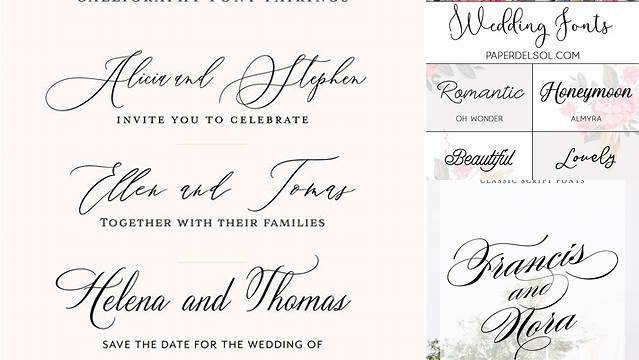
Elegant Script Fonts: Perfect For Wedding Invitations
Choosing the perfect font for your wedding invitations is a crucial decision, guys. It sets the tone for your special day and gives your guests a sneak peek into your wedding style. And when it comes to wedding invitations, script fonts are a timeless and elegant choice. But with so many options out there, it can feel overwhelming. Don't worry, we've got you covered! This guide will walk you through the best script fonts for wedding invitations, exploring different styles and providing tips for making the right choice. Let's dive in and find the perfect font to make your invitations truly unforgettable!
1. Classic Calligraphy Script Fonts
When we talk about wedding invitations, classic calligraphy script fonts immediately spring to mind. These fonts evoke a sense of timeless elegance and romance, reminiscent of handwritten letters and traditional ceremonies. Think flowing lines, delicate flourishes, and a touch of formality. These script fonts are perfect for couples aiming for a sophisticated and traditional aesthetic. Choosing a classic calligraphy font ensures your invitations exude grace and charm, setting the tone for a memorable celebration. Consider fonts like Edwardian Script ITC, English Vivace, or Shelley Allegro Script. These script fonts are known for their readability and refined appearance, making them ideal for formal invitations. Remember, readability is key, so choose a script font that is both beautiful and easy to read. You want your guests to be able to easily access the important details of your wedding! A well-chosen classic calligraphy script font will add a touch of timeless beauty to your special day.
2. Modern Script Fonts for Invitations
For couples seeking a more contemporary feel, modern script fonts offer a refreshing alternative. These fonts retain the elegance of calligraphy but incorporate clean lines and a touch of minimalism. Think of it as classic calligraphy's cooler, more contemporary cousin. Modern script fonts are perfect for couples who want a sophisticated yet trendy vibe. They strike a balance between tradition and modernity, making them versatile for various wedding styles. If your wedding has a sleek, chic, or even a slightly bohemian theme, a modern script font might be just the ticket. Consider fonts like Hello Script, Adelia, or Milkshake. These options provide a stylish twist on traditional calligraphy, making your invitations stand out. The key is to find a script font that feels both elegant and fresh, reflecting your unique style as a couple. Remember, guys, your invitations are the first glimpse your guests get of your wedding, so make it a good one!
3. Romantic and Flowing Script Fonts
If you're aiming for a truly romantic and dreamy feel, flowing script fonts are the way to go. These fonts are characterized by their graceful curves, elegant loops, and overall ethereal quality. Imagine the soft, sweeping lines of a love letter â that's the kind of emotion these fonts evoke. Romantic and flowing script fonts are perfect for weddings with a soft, whimsical, or fairytale-like theme. They add a touch of magic and enchantment to your invitations, setting the stage for a day filled with love and romance. Some fantastic options in this category include Aphrodite Pro, Samantha Script, and Isabella Script. These script fonts are known for their delicate beauty and intricate details. When choosing a flowing script font, consider the overall readability and ensure it complements the other design elements of your invitation. A beautifully flowing script font will add an extra touch of romance to your special day.
4. Bold and Dramatic Script Fonts
For couples who want to make a statement, bold and dramatic script fonts are an excellent choice. These fonts exude confidence and personality, perfect for weddings with a modern, glamorous, or even slightly edgy vibe. Think of them as the powerhouses of the script font world! Bold script fonts are not afraid to take center stage, commanding attention with their strong lines and distinctive presence. They are perfect for couples who want their invitations to be memorable and impactful. Fonts like Great Vibes, Playlist Script, and Black Jack are great examples of bold script fonts. These options have a strong presence while still maintaining an elegant touch. When using a bold script font, make sure to balance it with simpler fonts for other text elements to maintain readability. A well-chosen bold script font can add a touch of drama and sophistication to your wedding invitations.
5. Casual and Whimsical Script Fonts
If your wedding has a more relaxed and informal atmosphere, casual and whimsical script fonts are a fantastic option. These fonts have a playful and approachable feel, perfect for rustic, bohemian, or outdoor weddings. Think of them as the fun-loving cousins of the calligraphy family! Casual script fonts often feature a more handwritten or brush-style look, adding a personal touch to your invitations. They are perfect for couples who want their invitations to feel warm, inviting, and a bit less formal. Fonts like Amatic SC, Permanent Marker, or Lemon Tuesday offer a casual yet stylish vibe. These script fonts are great for conveying a sense of fun and personality. When using a casual script font, make sure it still complements the overall design of your invitation and reflects your wedding's relaxed atmosphere. A whimsical script font can add a touch of charm and personality to your special day.
6. Elegant Handwritten Script Styles
Elegant handwritten script styles bring a personal and intimate touch to wedding invitations. These fonts mimic the natural flow of handwriting, adding a sense of authenticity and sophistication. They're perfect for couples who want their invitations to feel like a heartfelt letter. Imagine your guests receiving an invitation that looks like it was penned just for them! These script fonts often feature slight imperfections and variations, further enhancing their handwritten charm. They're ideal for classic, romantic, or even vintage-themed weddings. Consider options like Beloved Script, La Sonnambula, or Mightype. These script fonts capture the essence of handwritten elegance, making your invitations truly special. Remember, the goal is to create an invitation that feels both personal and polished, and an elegant handwritten script font can help you achieve that.
7. Modern Calligraphy Font Choices
Modern calligraphy font choices bridge the gap between traditional elegance and contemporary design. These fonts combine the flowing lines of calligraphy with a cleaner, more minimalist aesthetic. They're perfect for couples who love the beauty of calligraphy but prefer a more updated look. Think of it as calligraphy with a modern twist! Modern calligraphy script fonts often feature unique letterforms and subtle variations, adding a touch of personality to your invitations. They're versatile enough to suit a variety of wedding styles, from chic and sophisticated to relaxed and bohemian. Options like September Script, Kallima, or Sophia Ronald Script offer a modern take on classic calligraphy. These script fonts provide a fresh and stylish feel, ensuring your invitations are both timeless and on-trend. Choosing the right modern calligraphy font choice can elevate your invitations and set the tone for a beautiful celebration.
8. Best Script Fonts for Save-the-Dates
Choosing the best script fonts for save-the-dates is just as important as selecting the fonts for your actual invitations. Save-the-dates are the first glimpse your guests get of your wedding style, so you want to make a good impression! Script fonts can add a touch of elegance and personality to your save-the-dates, setting the stage for your big day. The key is to choose a script font that is both beautiful and legible, ensuring your guests can easily read the important details. Consider a script font that complements your overall wedding theme and style. For example, a classic calligraphy script font would be perfect for a formal wedding, while a casual script font would be ideal for a rustic or bohemian celebration. Some great options for save-the-dates include Bickham Script Pro, Honey Script, or * āĻĢāĻā§āĻā§āϰāĻžāĻĢ*. These script fonts offer a variety of styles to suit your unique preferences. Remember, guys, your save-the-dates are the first step in building excitement for your wedding, so make them count!
9. Script Font Pairings for Invitations
One of the secrets to creating stunning wedding invitations is mastering script font pairings. Choosing the right combination of fonts can elevate your design and create a cohesive and visually appealing look. The key is to pair your chosen script font with a complementary sans-serif or serif font. Think of it as creating a harmonious balance between elegance and readability. For example, a flowing calligraphy script font might pair beautifully with a clean and modern sans-serif font. This combination creates a sense of sophistication while ensuring the important details are easy to read. When experimenting with script font pairings, consider the overall style of your wedding. A formal wedding might call for a more classic pairing, while a casual wedding could benefit from a more playful combination. Some popular script font pairings include Mrs Eaves with Raleway, Great Vibes with Montserrat, or Samantha Script with Lato. These combinations offer a variety of styles to suit different tastes. Don't be afraid to experiment and find the perfect script font pairing that reflects your unique style as a couple.
10. Free Script Fonts for Wedding Invitations
Creating beautiful wedding invitations doesn't have to break the bank! There are tons of amazing free script fonts available that can add a touch of elegance to your special day. While premium script fonts often offer more features and variations, many free script fonts are still incredibly stylish and versatile. The key is to do your research and find script fonts that are both beautiful and legible. Many websites offer a wide selection of free script fonts, so you're sure to find something that suits your taste. When using free script fonts, be sure to check the licensing terms to ensure they are suitable for commercial use (if you plan to print your invitations professionally). Some fantastic free script font options include * āĻā§āϝāĻžāύā§āϞā§āϰ *, * āĻā§āϝāĻžāύā§āϞā§āϰ *, or * āĻā§āϝāĻžāύā§āϞā§āϰ *. These script fonts offer a range of styles, from classic calligraphy to modern and whimsical. Don't be afraid to mix and match free script fonts to create a unique and personalized look. With a little creativity, you can design stunning wedding invitations without spending a fortune. Remember, guys, it's the thought and love that goes into your invitations that truly matters!
11. Premium Script Font Options
If you're looking for the ultimate in quality and versatility, exploring premium script font options is definitely worth considering. Premium script fonts often offer a wider range of features, including alternate characters, ligatures, and multiple weights, giving you greater control over your design. They are typically created by professional type designers, ensuring a high level of craftsmanship and attention to detail. While premium script fonts come with a cost, the investment can be well worth it if you want to create truly unique and stunning wedding invitations. They can elevate your design and give it a polished, professional look. Premium script fonts often come with extended licensing options, allowing you to use them for various projects. Some popular premium script font options include Samantha Script Pro, Burgues Script, or *áá *. These script fonts are known for their exceptional quality and versatility. When choosing a premium script font, consider your overall budget and design needs. If you're planning to use the script font for multiple projects, a premium script font can be a worthwhile investment. Remember, guys, your wedding invitations are a reflection of your special day, so choosing a high-quality script font can make a big difference!
12. Script Fonts with Swashes and Flourishes
For an extra touch of elegance and sophistication, consider script fonts with swashes and flourishes. These decorative elements add a touch of drama and visual interest to your wedding invitations, making them truly stand out. Swashes are extended strokes that flow gracefully from the letters, while flourishes are decorative embellishments that add a touch of whimsy. Script fonts with swashes and flourishes are perfect for couples who want their invitations to feel extra special and luxurious. They're ideal for formal weddings, romantic celebrations, or any event where you want to make a statement. When using script fonts with swashes and flourishes, it's important to use them sparingly to avoid overwhelming the design. A few well-placed swashes can add a touch of elegance, but too many can make the invitation look cluttered. Some beautiful script fonts with swashes and flourishes include Aphrodite Pro, Adorn Smooth Script, or Beloved Script. These script fonts offer a variety of swash and flourish options, allowing you to customize your invitations to your exact preferences. Remember, guys, a touch of embellishment can go a long way in creating a memorable invitation!
13. Best Cursive Fonts for Wedding Invites
Let's talk cursive, guys! When it comes to wedding invitations, the best cursive fonts are often the top choice for adding that touch of romance and elegance. Cursive fonts mimic handwriting, giving your invites a personal and intimate feel. Think of it as a handwritten love letter transformed into a beautiful invitation. The key to selecting the best cursive fonts lies in balancing aesthetics with readability. You want a font that's gorgeous but also ensures your guests can easily read the details of your special day. For a classic and timeless look, consider calligraphy-inspired cursive fonts. These fonts often feature elegant loops and swirls, perfect for formal weddings. On the other hand, modern cursive fonts offer a cleaner, more contemporary feel, ideal for chic or minimalist celebrations. Options like * āĻā§āϝāĻžāύā§āϞā§āϰ * or * āĻā§āϝāĻžāύā§āϞā§āϰ * are stunning choices, blending sophistication with a touch of personality. Remember, your wedding invitation is the first impression, so make it count with a beautifully chosen cursive font!
14. Hand Lettering Styles for Invitations
If you're aiming for a truly unique and personal touch, hand lettering styles for invitations are the way to go. Hand lettering is the art of creating custom letterforms by hand, rather than using pre-designed script fonts. This allows for a level of customization and artistry that is simply unmatched. Imagine your wedding invitations featuring lettering that is completely unique to your special day! Hand lettering can range from elegant calligraphy to whimsical brush lettering, offering endless possibilities for creativity. It's perfect for couples who want their invitations to feel like a true work of art. When incorporating hand lettering styles, you can either hire a professional hand lettering artist or try your hand at creating your own designs. There are tons of online resources and tutorials available to help you learn the basics of hand lettering. Some popular hand lettering styles for invitations include modern calligraphy, brush lettering, and chalkboard lettering. These styles offer a variety of aesthetics to suit different wedding themes. Remember, guys, hand lettering styles add a personal touch that your guests will truly appreciate!
15. Digital Calligraphy Fonts for Weddings
Digital calligraphy fonts for weddings offer the beauty of traditional calligraphy with the convenience of digital design. These fonts are created to mimic the look and feel of hand-lettered calligraphy, but they can be easily used in various design software programs. This makes them a perfect option for couples who want the elegance of calligraphy without the cost or time commitment of hiring a professional calligrapher. Digital calligraphy fonts come in a wide range of styles, from classic and formal to modern and whimsical. This versatility allows you to find the perfect digital calligraphy font to match your wedding theme and style. When choosing a digital calligraphy font, it's important to consider readability. While some script fonts are incredibly beautiful, they can be difficult to read if the lettering is too intricate. Look for digital calligraphy fonts that strike a balance between aesthetics and legibility. Some popular digital calligraphy fonts for weddings include * āĻā§āϝāĻžāύā§āϞā§āϰ *, * āĻā§āϝāĻžāύā§āϞā§āϰ *, or * āĻā§āϝāĻžāύā§āϞā§āϰ *. These script fonts offer a variety of styles and personalities. Remember, guys, digital calligraphy fonts are a fantastic way to add a touch of elegance to your wedding invitations!
16. Formal Script Fonts for Elegant Invitations
When it comes to elegant wedding invitations, formal script fonts are a classic choice. These fonts exude sophistication and timelessness, making them perfect for traditional or black-tie weddings. Think of them as the tuxedo of the font world! Formal script fonts often feature elegant swashes, delicate flourishes, and graceful curves, adding a touch of luxury to your invitations. They are designed to convey a sense of formality and refinement, setting the tone for a sophisticated celebration. When choosing formal script fonts, it's important to consider readability. While elegance is key, you also want to ensure your guests can easily read the important details of your wedding. Look for formal script fonts that strike a balance between beauty and legibility. Some popular formal script fonts for elegant invitations include Edwardian Script ITC, Bickham Script Pro, or English Vivace. These script fonts are known for their refined appearance and timeless appeal. Remember, guys, formal script fonts are the perfect way to set the stage for an elegant wedding!
17. Informal Script Options for Casual Weddings
Planning a more laid-back affair? Then informal script options for casual weddings are your best friend! These fonts bring a relaxed and friendly vibe to your invitations, reflecting the easygoing atmosphere of your celebration. Think of them as the comfy jeans of the font world â stylish yet totally approachable. Informal script fonts often have a more handwritten or brush-style look, adding a personal touch to your invitations. They're perfect for rustic, bohemian, or outdoor weddings, where a formal font might feel a bit out of place. When selecting informal script options, think about fonts that are easy to read and convey a sense of fun and personality. Avoid overly ornate or elaborate scripts, and instead, opt for fonts with a more casual and whimsical feel. Great examples include * āĻā§āϝāĻžāύā§āϞā§āϰ *, * āĻā§āϝāĻžāύā§āϞā§āϰ *, or * āĻā§āϝāĻžāύā§āϞā§āϰ *. These script fonts add character without sacrificing readability. Remember, your invitations should reflect the overall tone of your wedding, and informal script options are a fantastic way to set a relaxed and welcoming mood.
18. Best Script Fonts for RSVP Cards
Okay, guys, let's talk RSVP cards! Choosing the best script fonts for these little guys is crucial for ensuring a cohesive and stylish invitation suite. The font you select for your RSVP card should complement the main invitation font, creating a harmonious and visually appealing look. While you might be tempted to use the same script font as your invitation, consider opting for a slightly simpler or more legible script font for the RSVP card. This ensures that guests can easily fill out their response information without struggling to read the text. When selecting the best script fonts, think about the overall tone of your wedding. A formal wedding might call for a classic calligraphy script font, while a casual wedding could benefit from a more whimsical or handwritten script font. Some excellent options for RSVP cards include * āĻā§āϝāĻžāύā§āϞā§āϰ *, * āĻā§āϝāĻžāύā§āϞā§āϰ *, or a simplified version of your main invitation script font. Remember, the goal is to make it as easy as possible for your guests to RSVP, so choose a font that is both beautiful and practical.
19. Script Fonts that are Easy to Read
Let's get real, guys. Beauty is important, but when it comes to wedding invitations, script fonts that are easy to read are a must. You want your guests to be able to quickly and easily understand all the crucial details of your special day â the date, time, location, and any other important information. A gorgeous script font is useless if no one can decipher it! The key to finding script fonts that are easy to read is to look for fonts with clear letterforms and ample spacing. Avoid script fonts that are overly ornate, with too many swirls or flourishes, as these can be difficult to read, especially in smaller sizes. Opt for script fonts that have a clean and legible design, even when written in cursive. Some excellent options for script fonts that are easy to read include * āĻā§āϝāĻžāύā§āϞā§āϰ *, * āĻā§āϝāĻžāύā§āϞā§āϰ *, or * āĻā§āϝāĻžāύā§āϞā§āϰ *. These script fonts strike a perfect balance between elegance and legibility. Remember, your invitations are meant to be informative as well as beautiful, so choose a script font that ticks both boxes!
20. Pairing Script with Sans-Serif Fonts
One of the best design tricks for wedding invitations is pairing script with sans-serif fonts. This combination creates a visually appealing contrast that adds both elegance and readability to your invites. Think of it as the perfect marriage of style and function! Script fonts bring a touch of romance and personality, while sans-serif fonts offer clean lines and a modern feel. When pairing script with sans-serif fonts, the key is to create balance. Use the script font for the main headings or key information, like the couple's names or the wedding date, and use the sans-serif font for the body text or other supporting details. This allows the script font to shine without overwhelming the overall design. Some fantastic pairing script with sans-serif fonts include * āĻā§āϝāĻžāύā§āϞā§āϰ * with * āĻā§āϝāĻžāύā§āϞā§āϰ *, * āĻā§āϝāĻžāύā§āϞā§āϰ * with * āĻā§āϝāĻžāύā§āϞā§āϰ *, or * āĻā§āϝāĻžāύā§āϞā§āϰ * with * āĻā§āϝāĻžāύā§āϞā§āϰ *. These combinations offer a variety of aesthetics to suit different wedding styles. Remember, guys, the right script font pairing can elevate your invitations from beautiful to unforgettable!
21. Using Script Fonts for Different Wedding Themes
Using script fonts for different wedding themes is a fantastic way to set the tone for your big day. The font you choose can instantly convey the style and atmosphere of your wedding, from classic and formal to rustic and bohemian. Think of it as the visual voice of your celebration! For a traditional or classic wedding, elegant calligraphy script fonts are a perfect choice. These fonts exude timeless romance and sophistication. If you're planning a more modern or minimalist wedding, opt for a clean and contemporary script font with simple lines and minimal flourishes. Rustic or bohemian weddings call for script fonts with a more handwritten or brush-style look. These fonts add a touch of warmth and personality to your invitations. When using script fonts for different wedding themes, consider the overall aesthetic of your wedding and choose a font that complements your dÊcor, color scheme, and other design elements. For example, if you're having a beach wedding, a breezy and casual script font might be the perfect fit. Remember, guys, your font choice is a powerful tool for communicating your wedding style to your guests!
22. Best Online Resources for Script Fonts
Finding the best online resources for script fonts can be a game-changer when designing your wedding invitations. The internet is overflowing with options, but knowing where to look can save you tons of time and effort. From free script fonts to premium options, there's a website out there to suit every budget and style. Some top contenders for best online resources for script fonts include websites like MyFonts, Creative Market, Font Squirrel, and DaFont. These platforms offer a vast selection of script fonts, along with helpful search filters and previews to help you narrow down your choices. When browsing online resources, be sure to check the licensing terms for each font, especially if you plan to use it for commercial purposes (like printing your invitations professionally). Many websites offer both free script fonts and paid options, so you can find the perfect fit for your needs and budget. Remember, guys, a little research can go a long way in discovering amazing script fonts for your wedding invitations!
23. How to Choose the Right Script Font Size
Choosing the right script font size is crucial for ensuring your wedding invitations are both beautiful and legible. The font size you select can significantly impact the overall look and feel of your invitations, so it's important to consider a few key factors. Generally, script fonts tend to be slightly harder to read than sans-serif fonts, so you might need to use a slightly larger font size to compensate. Think of it as giving your script font a little extra breathing room! When deciding how to choose the right script font size, consider the complexity of the font itself. More intricate script fonts with lots of swirls and flourishes might need to be larger to remain legible, while simpler script fonts can often be used at a smaller size. Also, think about the overall layout of your invitation. If you have a lot of text, you might need to use a smaller font size to fit everything comfortably. A good starting point for script fonts on wedding invitations is around 12-14 points for body text and 16-20 points for headings. Remember, guys, always print a test copy of your invitation before sending it out to ensure the font size is just right!
24. Font Licensing for Wedding Invitations
Okay, guys, let's talk about something super important: font licensing for wedding invitations. It might seem a little dry, but understanding font licenses can save you from potential headaches down the road. Think of it as knowing the rules of the road before you start driving! Font licensing essentially outlines how you are legally allowed to use a particular font. Most script fonts, especially those you find online, come with specific licenses that dictate whether you can use them for personal projects, commercial projects, or both. For personal use, like designing your own wedding invitations, many free script fonts will be perfectly fine. However, if you plan to print your invitations professionally or use the font for other commercial purposes (like selling wedding stationery), you'll likely need to purchase a commercial license. Font licensing terms can vary widely, so it's crucial to read the fine print before using a font. Some licenses might restrict the number of invitations you can print, while others might prohibit embedding the font in digital files. When in doubt, it's always better to err on the side of caution and purchase a commercial license to ensure you're using the font legally. Remember, guys, respecting font licensing is a way of supporting the talented designers who create these beautiful script fonts!
25. Customizing Script Fonts for a Unique Look
Want to add a personal touch to your wedding invitations? Customizing script fonts for a unique look is the way to go! While using a standard script font can be beautiful, tweaking it slightly can make your invitations truly stand out. Think of it as adding your own signature flair to a classic piece! There are several ways to go about customizing script fonts. You can experiment with different colors, weights, and sizes to create visual interest. Adding subtle shadows or outlines can also give your script font a unique dimension. If you're feeling more adventurous, you can even try modifying the letterforms themselves, adding swashes, flourishes, or other embellishments. Customizing script fonts can be done using various design software programs, like Adobe Illustrator or Photoshop. If you're not comfortable using design software, you can also hire a graphic designer to help you customize your chosen script font. The key to successful customization is to keep it subtle and avoid making the font too difficult to read. You want to enhance the beauty of the script font, not detract from it. Remember, guys, customizing script fonts is a fantastic way to make your wedding invitations truly one-of-a-kind!
26. Script Font Trends for Wedding Invitations
Staying up-to-date with script font trends for wedding invitations can help you create invitations that are both stylish and timeless. Just like fashion, font trends come and go, so it's helpful to know what's currently popular in the wedding world. Think of it as having your finger on the pulse of wedding style! Currently, some of the hottest script font trends include modern calligraphy fonts, brush lettering fonts, and fonts with a handwritten feel. These fonts offer a fresh and contemporary take on classic calligraphy, adding a touch of personality and warmth to your invitations. Elegant and flowing script fonts with delicate swashes and flourishes are also popular, particularly for formal weddings. When considering script font trends, it's important to choose a font that not only looks stylish but also reflects your personal taste and the overall theme of your wedding. Avoid choosing a font simply because it's trendy if it doesn't align with your style. Remember, the goal is to create invitations that are beautiful and timeless, not just fashionable for the moment. By incorporating current script font trends thoughtfully, you can create wedding invitations that are both modern and memorable. Remember, guys, staying informed about script font trends is a great way to keep your wedding invitations looking fresh and stylish!
27. Printing Techniques for Script Fonts
Okay, guys, let's dive into the nitty-gritty of printing techniques for script fonts! The way you print your wedding invitations can make a huge difference in how your chosen script font looks. Think of it as choosing the right frame for a beautiful piece of art! Different printing techniques can enhance the elegance and legibility of your script fonts, adding a touch of sophistication to your invitations. Some popular printing techniques for wedding invitations include letterpress, foil stamping, and digital printing. Letterpress printing creates a tactile impression on the paper, giving your script font a luxurious and dimensional feel. Foil stamping adds a touch of glamour with shiny metallic accents, perfect for elegant or formal weddings. Digital printing is a versatile and cost-effective option that allows for a wide range of colors and designs. When choosing a printing technique, consider the style of your script font and the overall aesthetic of your wedding. For example, a delicate calligraphy script font might look stunning with letterpress printing, while a bold and modern script font could shine with foil stamping. Remember, guys, the printing techniques you choose can elevate your script fonts and make your wedding invitations truly special!
28. Script Fonts with Multilingual Support
If you have guests from different linguistic backgrounds, script fonts with multilingual support are a fantastic choice for your wedding invitations. These fonts include characters and glyphs for various languages, ensuring that all your guests can easily read and understand the information on your invites. Think of it as extending a warm welcome to everyone, no matter where they come from! Script fonts with multilingual support often include characters for languages like Spanish, French, German, and many others. This is especially helpful if you're planning a destination wedding or have a multicultural guest list. When selecting script fonts with multilingual support, be sure to check which languages are included in the font package. Some fonts offer broader language support than others. Also, consider the overall legibility of the font in different languages. Some script fonts may look beautiful in English but less clear in other languages. Remember, guys, choosing script fonts with multilingual support is a thoughtful way to make all your guests feel included and valued on your special day!
29. Common Mistakes to Avoid When Choosing Script Fonts
Choosing the perfect script font can feel like a big decision, but don't worry, guys! Let's talk about some common mistakes to avoid when choosing script fonts for your wedding invitations. Think of it as a little cheat sheet to help you navigate the font jungle! One of the biggest mistakes is prioritizing beauty over legibility. A gorgeous script font is useless if your guests can't read it! Always choose a font that is both elegant and easy to decipher. Another common mistake is using too many different fonts on your invitation. Stick to a maximum of two fonts â a script font for headings and key information, and a simpler sans-serif font for body text. This will create a clean and cohesive look. Don't forget to consider the overall tone of your wedding when choosing a script font. A formal wedding calls for a classic calligraphy font, while a casual wedding might benefit from a more whimsical or handwritten script font. Finally, avoid using script fonts in all caps, as this can make the text very difficult to read. Remember, guys, avoiding these common mistakes will help you choose script fonts that are both beautiful and functional for your wedding invitations!
30. Creative Ways to Use Script Fonts on Invitations
Ready to get those creative juices flowing, guys? Let's brainstorm some creative ways to use script fonts on invitations! Think beyond just the names and dates â there are tons of opportunities to make your script font shine. Consider using a beautiful script font to highlight key phrases, such as